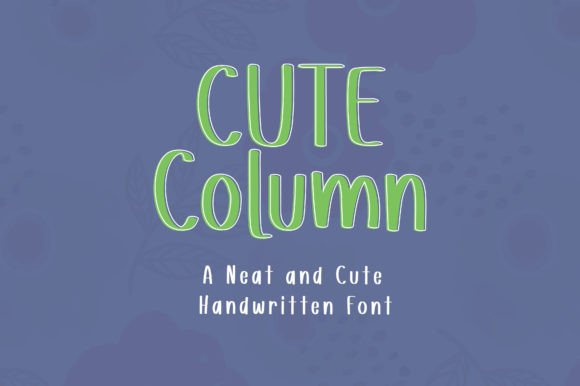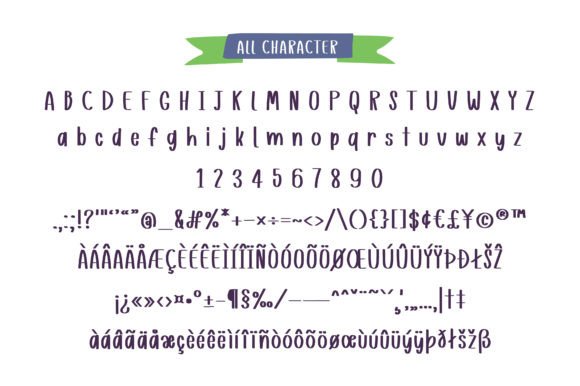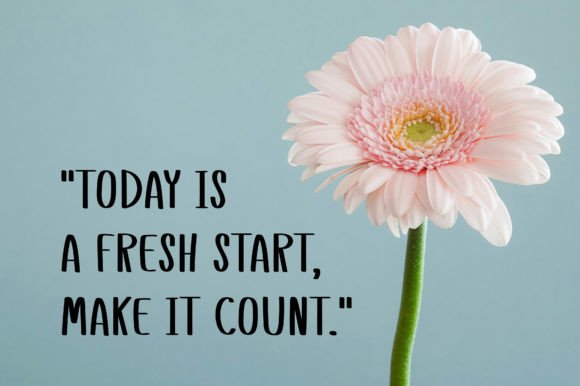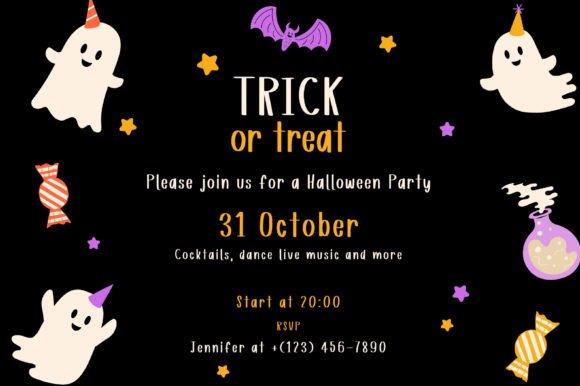
From logos to headlines, the Cute Column Font Font is the perfect choice for making a lasting impression. Introducing the CuteColumn Font—an elegant fusion of charm and functionality. Infused with a refreshing handwritten style, this clean font breathes life into your digital notes and study materials. CuteColumn is a whimsical take on sans serif and handwritten fonts. Created specifically for digital planning and note-taking, it adds a memorable touch to your digital study notes and collage notes—blending the simplicity of neat handwriting with the quirkiness of cute handwriting.
CuteColumn’s playful yet legible nature makes it ideal for headlines, short-form text in social media graphics, and branding elements requiring a touch of whimsy. It excels in projects targeting a young, vibrant audience, such as children’s books, stationery design, or lifestyle brands. However, its handwritten style is less suitable for body text or lengthy paragraphs, impacting readability at smaller sizes. Avoid using it for UI elements or situations demanding high legibility.
Pairing CuteColumn effectively requires balancing its informal energy. Consider pairing it with a clean sans-serif like Lato for a modern contrast, or a more traditional serif such as Playfair Display for a sophisticated touch. A geometric sans-serif like Montserrat could provide a stable, contemporary counterpoint, while a delicate script font would add a layer of romanticism if used sparingly.
The overall personality of CuteColumn is friendly, approachable, and slightly quirky. It projects a sense of youthful energy and creativity, making it a great choice for brands wishing to convey optimism and approachability.